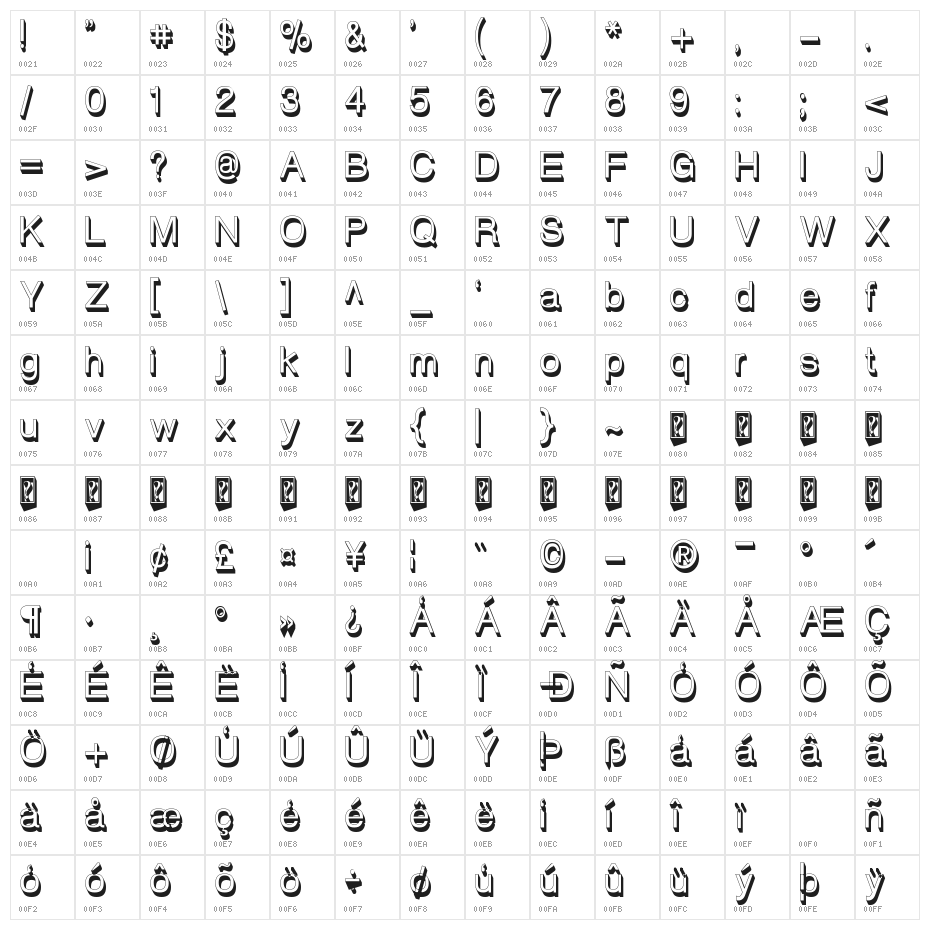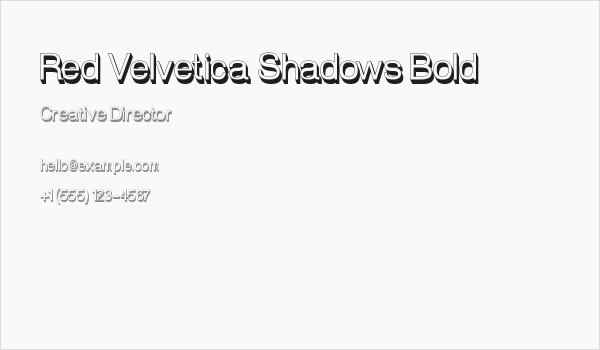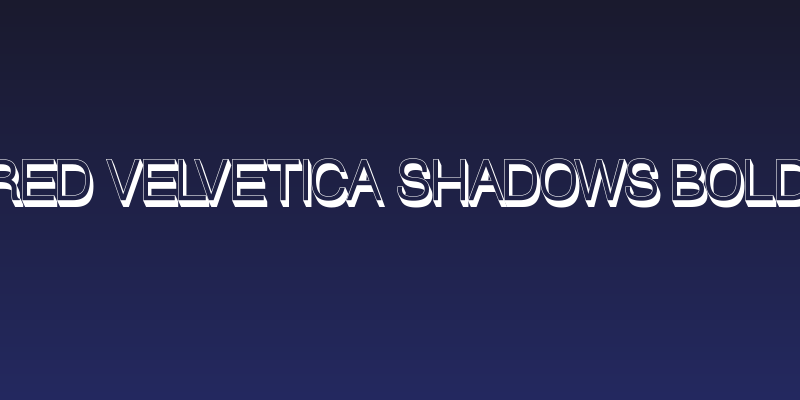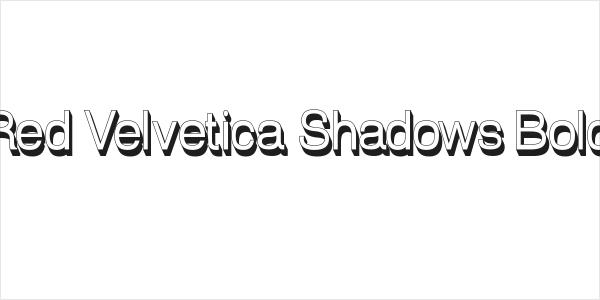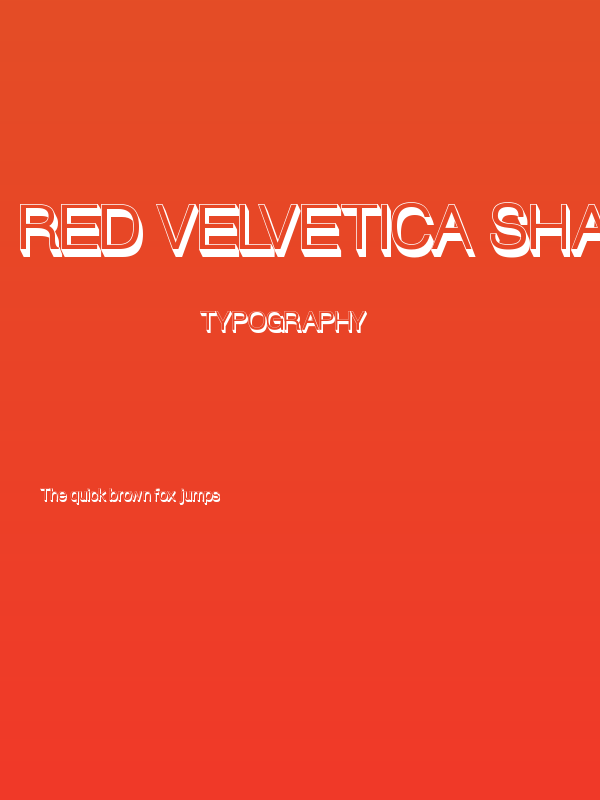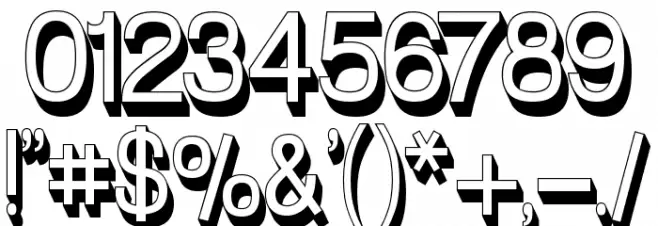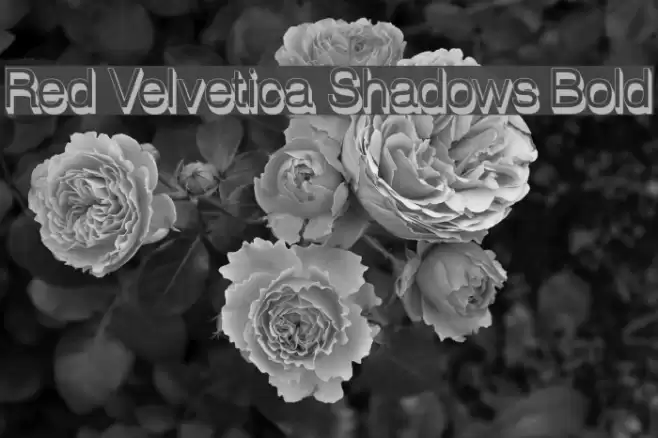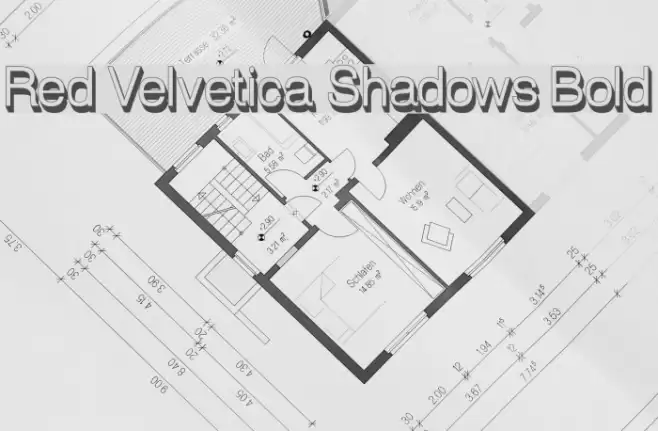
Red Velvetica Shadows Bold Font
Red Velvetica Shadows Bold Description
This font features a bold, three-dimensional design with a distinct shadow effect that gives it a striking and modern appearance. The characters are sans-serif, with clean and smooth lines that enhance readability while maintaining a decorative flair. The shadow adds depth, making the text appear as if it is lifted off the page. This style is ideal for creating eye-catching headlines and titles. The font maintains consistent proportions across uppercase, lowercase, numbers, and special characters, ensuring uniformity in design. Its boldness and shadow effect make it suitable for projects that require a strong visual impact.
| Proposed Projects | Ideal for posters, headlines, branding, and any design requiring a bold statement. |